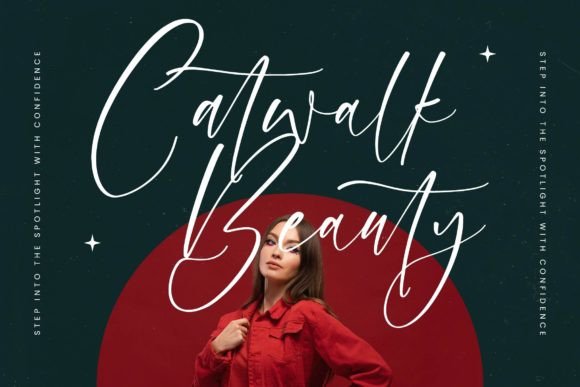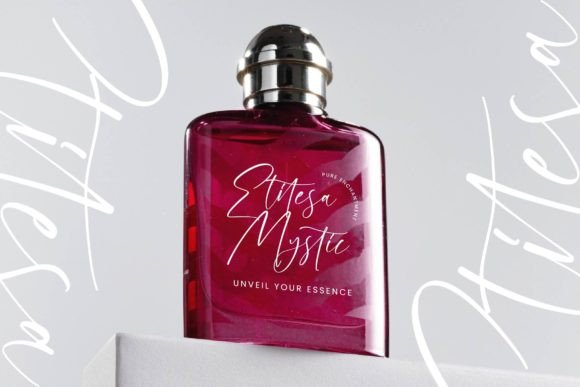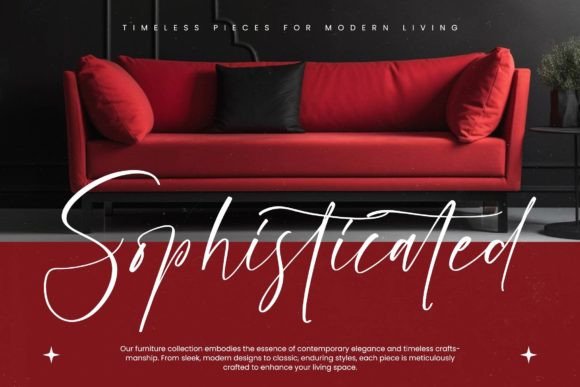
Introduction to Petalika Natalins Font
Do you remember the moment when you finally found the perfect font to match your creative vision? For many designers, it’s a moment of pure joy and excitement. And that’s exactly what we’re here to share with you today – a game-changing luxury script font that will elevate your projects to new heights: Petalika Natalins Font.
Developed by Letterena, this stunning font is a masterpiece of design, perfect for any project that demands elegance and sophistication. From logos and branding projects to homeware designs and product packaging, Petalika Natalins Font is a versatile design resource that will never let you down. With its high-quality strokes and refined details, it’s the perfect addition to any creative project, offering a level of sophistication that’s hard to find in free download fonts.
Whether you’re working on a special event invitation, a book cover, or a product label, Petalika Natalins Font is sure to impress. And the best part? Its transparent background makes it incredibly easy to work with, allowing you to focus on what matters most – creating something truly beautiful.
Key Features of Petalika Natalins Font
- Petalika Natalins Font is a high-quality design resource ideal for creative projects requiring a unique touch.
- This beautiful font features a transparent background, allowing for seamless integration into various design elements.
- This font’s unique characteristics include intricate details and a delicate, hand-painted feel, perfect for adding a touch of elegance to any design project.
- The font comes in a single weight, but its versatility and high quality make it an excellent choice for a wide range of creative projects.
Honest Review: Petalika Natalins Font
I recently stumbled upon the Petalika Natalins Font, and I’m excited to share my honest review. As a designer, I’m always on the lookout for high-quality design resources to elevate my creative projects. In this case, the Petalika Natalins Font did not disappoint.
- ✨ Unique and elegant design style that’s perfect for feminine or vintage-themed projects
- ✨ High-quality font files that are clear and crisp, even at larger font sizes
- ✨ Transparent background option, making it easy to layer and combine with other design elements
- ⚠️ Limited language support, which may be a concern for designers working on projects that require multiple languages
- ⚠️ Not as extensive a character set as some other fonts, which may limit its use in certain contexts
Overall, I’m impressed with the Petalika Natalins Font and would definitely consider using it for future design projects. While it may have some limitations, its unique design style and high-quality font files make it a valuable addition to any design resource library. If you’re looking for a beautiful, elegant font for your next creative project, the Petalika Natalins Font is definitely worth checking out.
Petalika Natalins Font
To get the most out of the Petalika Natalins Font, use it in combination with other design elements to create a cohesive look. Experiment with different font sizes, colors, and arrangements to find the perfect balance for your creative project. Additionally, use the font’s transparent background feature to create a sense of depth and visual interest.
The Petalika Natalins Font is perfect for a variety of creative projects, including invitations, brochures, and social media graphics. Its high-quality design and transparent background feature make it a versatile font that can be used in a range of applications.